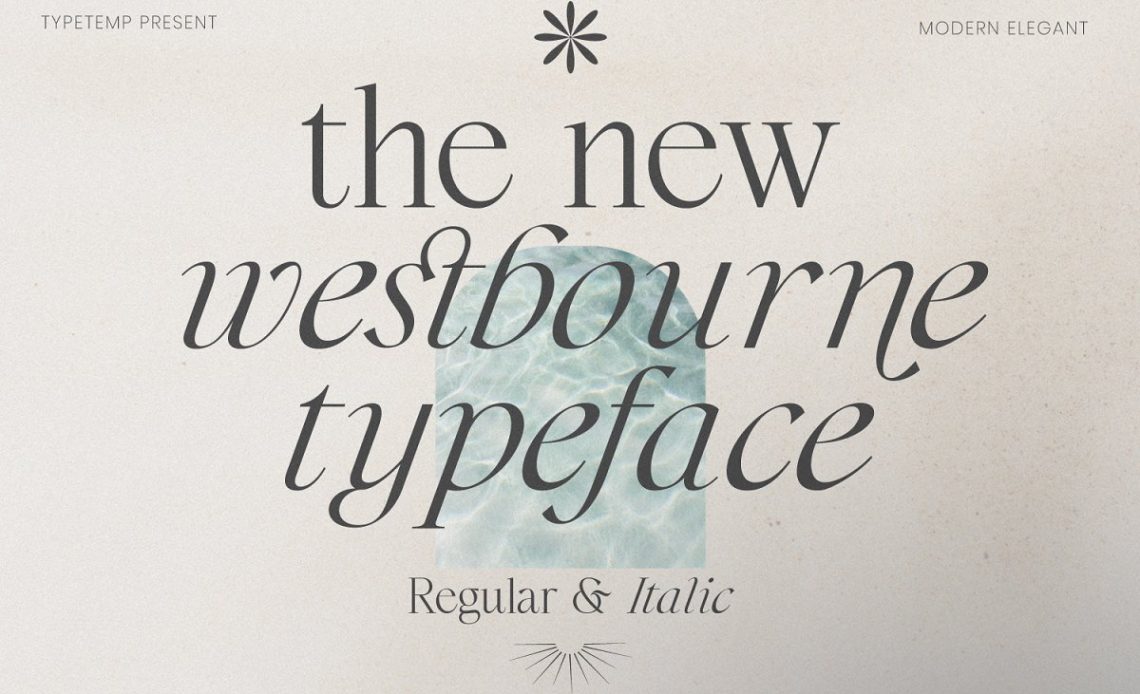
Are you looking for a font that will help your designs stand out? Look no further than Westbourne - the modern serif typeface that is perfect for TV display and so much more. Created by Egi Ahmad Mufid, this font is stylish and sophisticated, with a modern twist that will grab the attention of your audience.
Westbourne comes with alternatives and ligatures, making it incredibly versatile and perfect for creating stunning logos, quotes, posts, blog content, and much more. It's also ideal for branding projects, magazine imagery, wedding invitations, and any other creative endeavor you can think of.
Whether you're a seasoned designer or just starting out, Westbourne is the perfect addition to your font collection. With its unique letterforms and modern flair, it's sure to help your designs stand out and make a lasting impression on your audience.